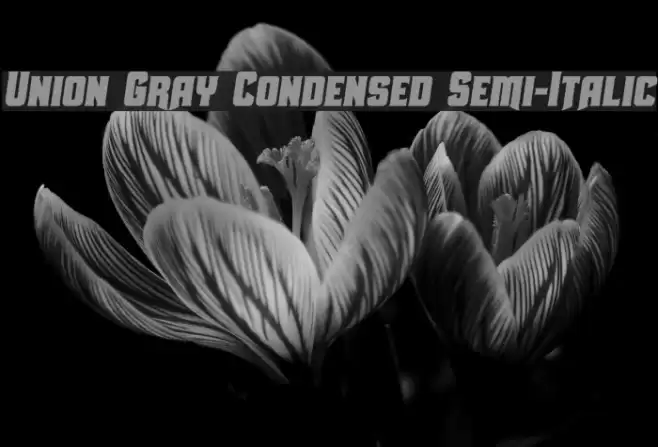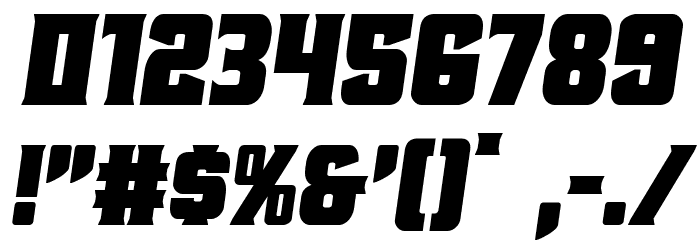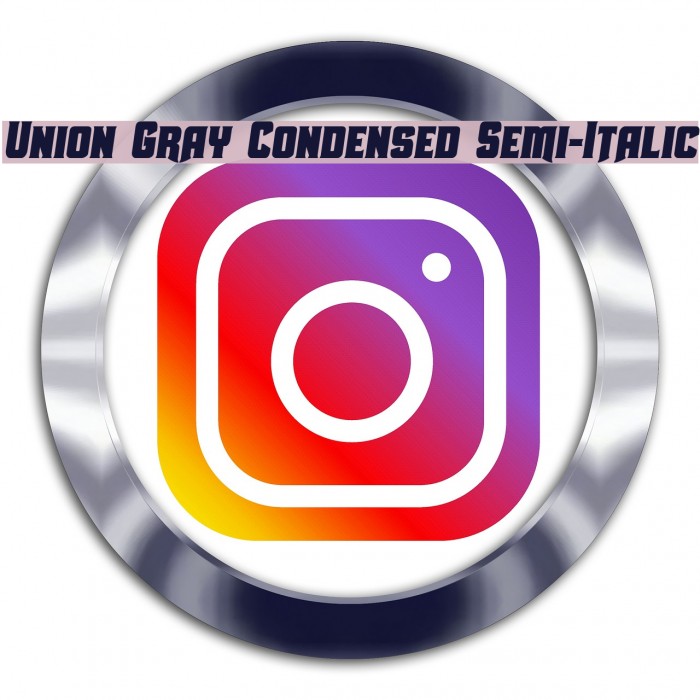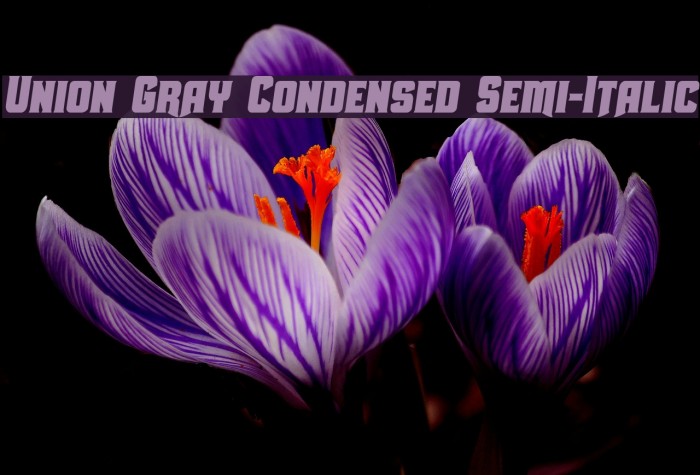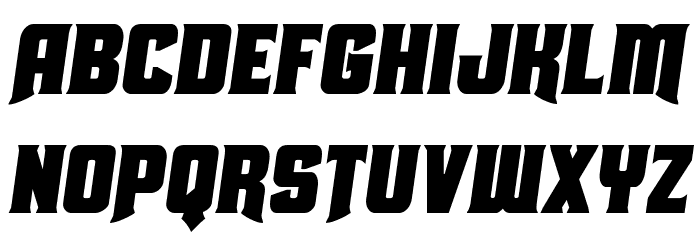
Union Gray Condensed Semi-Italic Font
Union Gray Condensed Semi-Italic Description
This font features a bold and dynamic design with a condensed width, giving it a strong and impactful presence. The semi-italic style adds a sense of movement and energy, making it suitable for attention-grabbing headlines and titles. The characters are well-defined with sharp angles and a modern aesthetic, while maintaining readability. The uppercase and lowercase letters are consistent in style, and the numerals and special characters complement the overall design. This font's unique style makes it ideal for projects that require a bold statement.
A bold, condensed, semi-italic font with a modern and dynamic style from Uncategorized fonts.
- Proposed Projects: Ideal for sports branding, posters, headlines, and any project needing a bold, impactful font.